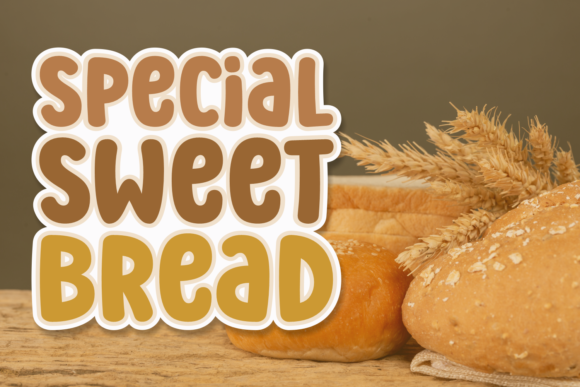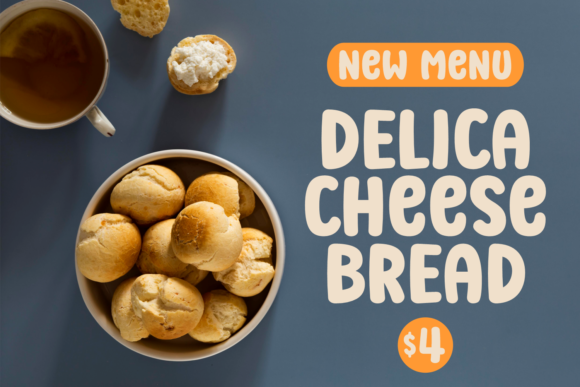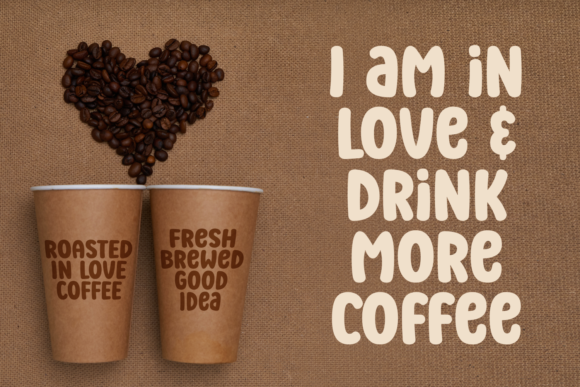
Cake and Bread Font: The Perfect Addition to Your Design Collection
Are you a designer or crafter looking for a unique and creative font to add a personal touch to your projects? Look no further than the Cake and Bread font! This modern display font features a chubby character set that’s sure to bring a smile to your customers’ faces. In this article, we’ll explore the features and benefits of the Cake and Bread font, and show you how to use it to take your designs to the next level.
What is Cake and Bread Font?
Cake and Bread font is a creative display font designed specifically for use in a variety of design projects. Its chubby character set gives it a playful and whimsical feel, making it perfect for use in designs that require a personal touch. The font is highly legible and versatile, making it suitable for use in a wide range of applications, from packaging and food menus to websites, posters, labels, tags, art prints, and quotes.
Key Features of Cake and Bread Font
- Chubby Character Set: The Cake and Bread font features a unique chubby character set that gives it a playful and whimsical feel.
- Modern Design: The font has a modern design that’s perfect for use in contemporary design projects.
- Highly Legible: The font is highly legible, making it easy to read in a variety of sizes and applications.
- Versatile: The font is versatile and can be used in a wide range of design projects, from packaging and food menus to websites and art prints.
Benefits of Using Cake and Bread Font
There are many benefits to using the Cake and Bread font in your design projects. Here are just a few:
- Adds a Personal Touch: The Cake and Bread font adds a personal touch to your designs, making them more relatable and engaging.
- Stand Out from the Crowd: The font’s unique design helps your designs stand out from the crowd and grab attention.
- Perfect for Food-Related Designs: The font’s food-themed design makes it perfect for use in food-related designs, such as packaging, food menus, and labels.
How to Use Cake and Bread Font
Using the Cake and Bread font is easy! Here are a few tips to get you started:
- Pair it with Other Fonts: Pair the Cake and Bread font with other fonts to create a unique and visually appealing design.
- Use it in Large Sizes: The font looks great in large sizes, making it perfect for use in posters, signs, and other large-format designs.
Design Ideas Using Cake and Bread Font
The Cake and Bread font is versatile and can be used in a wide range of design projects. Here are a few ideas to get you started:
- Food Packaging: Use the font to create eye-catching food packaging that stands out on store shelves.
- Food Menus: Add a personal touch to your restaurant’s menu with the Cake and Bread font.
- Websites: Use the font to create a unique and engaging website that’s sure to grab attention.
- Posters and Signs: Create eye-catching posters and signs with the Cake and Bread font.
- Labels and Tags: Use the font to create custom labels and tags for your products.
- Art Prints and Quotes: Create beautiful art prints and quotes with the Cake and Bread font.
The Cake and Bread font is a unique and creative addition to any design collection. Its chubby character set and modern design make it perfect for use in a wide range of design projects, from packaging and food menus to websites and art prints. With its highly legible design and versatility, the Cake and Bread font is sure to become a favorite among designers and crafters. So why wait? Download the Cake and Bread font today and start creating your own unique designs!